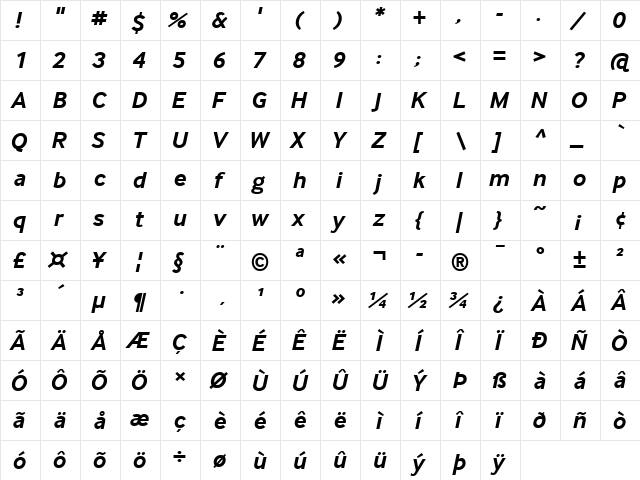
InterFace DaMa Bold Italic Font Preview
Design Context for InterFace DaMa Typeface
InterFace DaMa takes a measured approach to typography — its balanced proportions and neutral character make it a reliable workhorse for both digital and print work. Its italic angle brings a sense of urgency and motion to the letterforms. The heavy weight commands attention and anchors typographic hierarchies.
Pro Tip: Try InterFace DaMa for annotation and caption copy alongside an upright companion — the contrast in angle creates a dynamic but ordered typographic system.